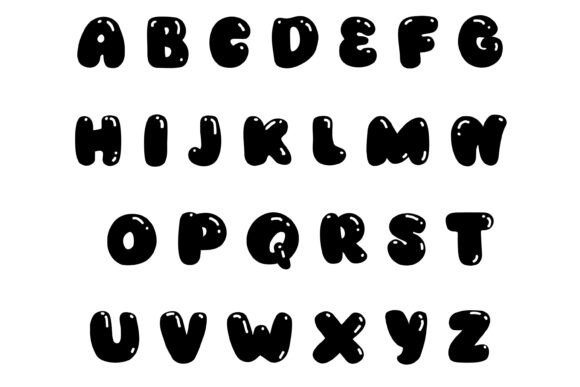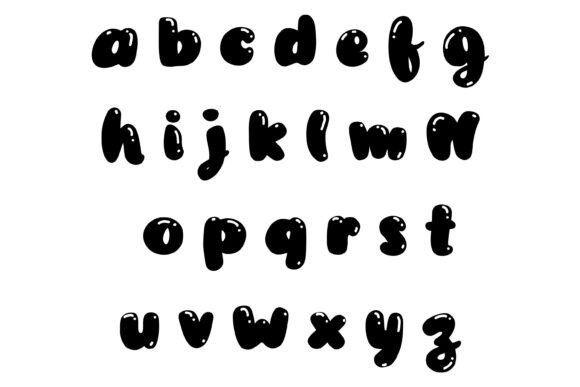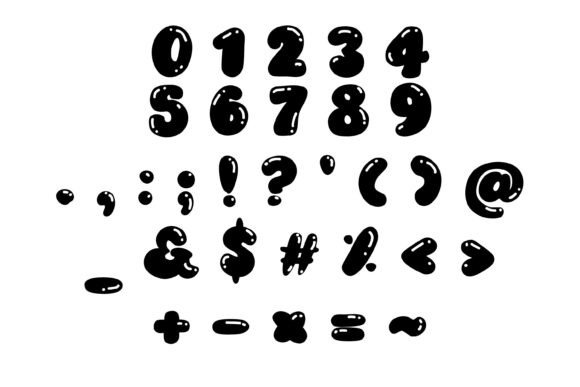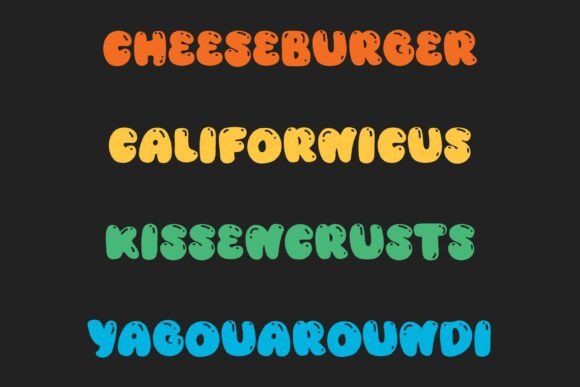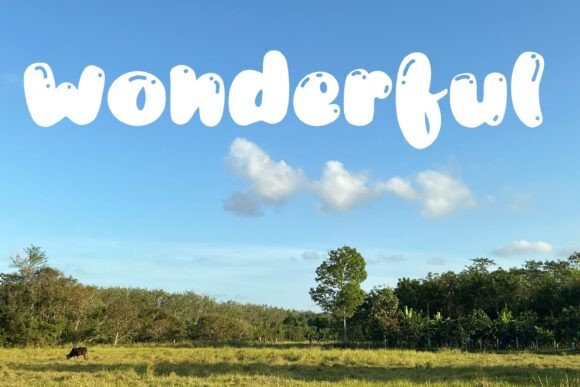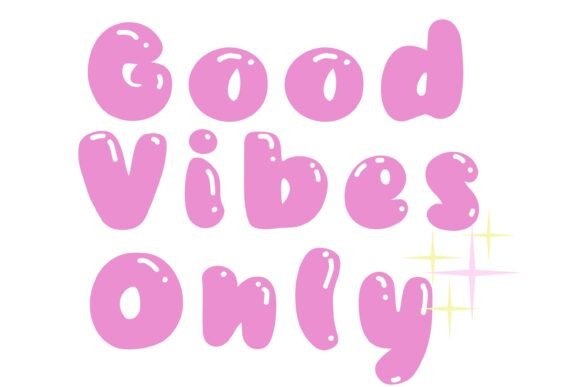
Introducing Fluffy Moji Display Font: The Ultimate Playful Typeface for Creative Projects
Are you looking for a font that can add a playful pop to your creative projects? Look no further than Fluffy Moji Display Font, a fun and bubbly typeface that’s perfect for designers and crafters alike. This whimsical font is designed to bring joy and fun to any design, making it ideal for children’s designs, party invitations, product packaging, and cute branding.
What Makes Fluffy Moji So Special?
Fluffy Moji is more than just a font – it’s a design element that can elevate your projects to the next level. Its soft, rounded shapes and glossy highlights give it a 3D balloon texture that’s sure to delight. The font includes uppercase, lowercase, numbers, punctuation, and symbols, making it versatile and easy to use.
Key Features of Fluffy Moji Display Font
- 🎈 Whimsical bubble style that adds joy and fun to any design
- 🔤 Includes uppercase, lowercase, numbers, punctuation, and symbols
- 🎨 Ideal for kids crafts, cartoon titles, kawaii themes, and sticker design
- 🖍️ Smooth curves and shiny highlights mimic a 3D balloon texture
- 📦 Works great on posters, logos, party invites, product packaging, and more
- 🧸 Perfect choice for playful branding and educational projects
Fluffy Moji Display Font is perfect for designers and crafters who want to add a playful touch to their projects. Whether you’re creating party invitations, product packaging, or cute branding, this font is sure to delight. Its smooth curves and shiny highlights make it perfect for kids crafts, cartoon titles, kawaii themes, and sticker design.
What Can You Create with Fluffy Moji?
The possibilities are endless with Fluffy Moji Display Font. Here are a few ideas to get you started:
- Party invitations and decorations
- Kids crafts and educational projects
- Product packaging and branding
- Cartoon titles and animations
- Kawaii themes and sticker design
- Logos and business cards
Why Choose Fluffy Moji Display Font?
There are many reasons why Fluffy Moji Display Font stands out from the crowd. Here are a few:
- Unique and playful design that’s sure to delight
- Perfect for a wide range of creative projects